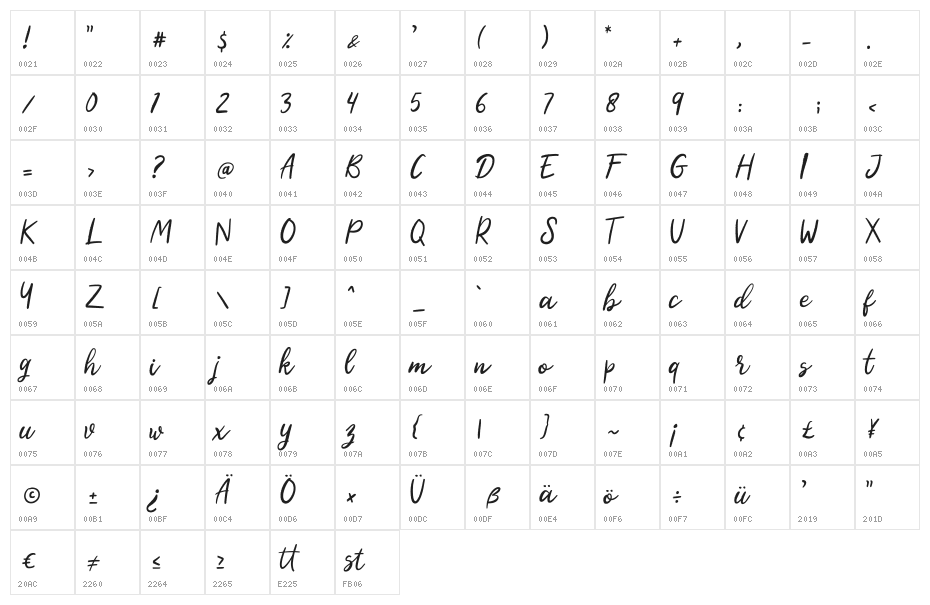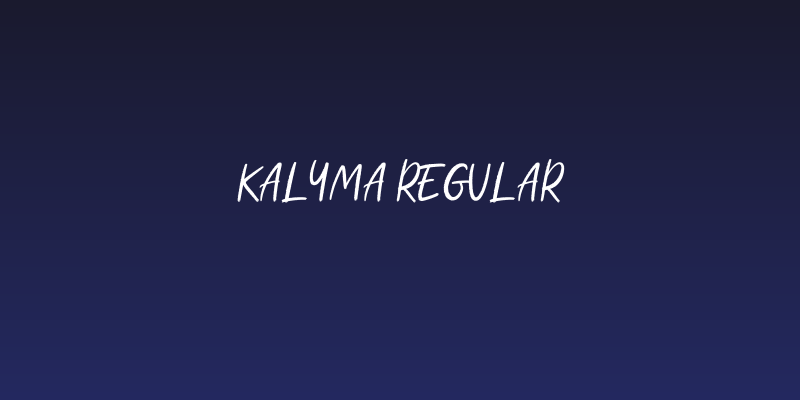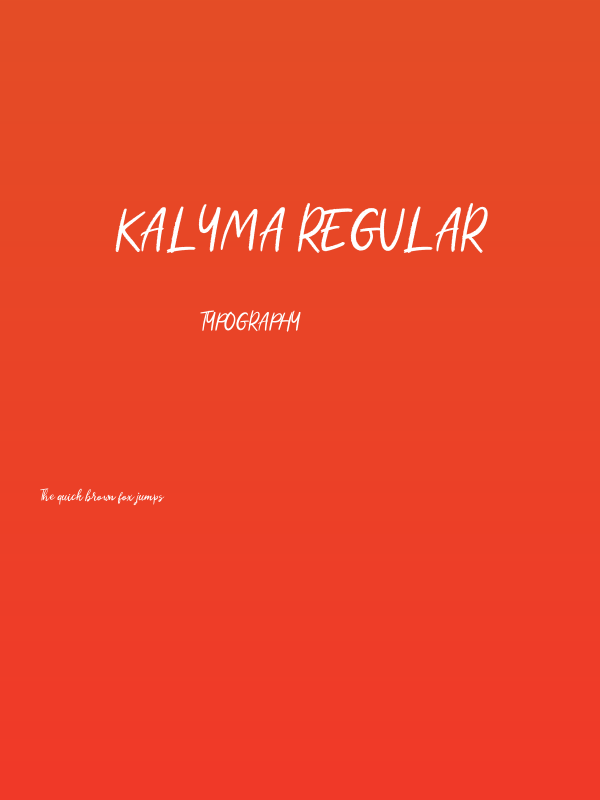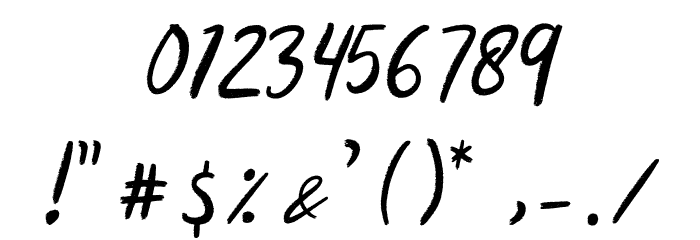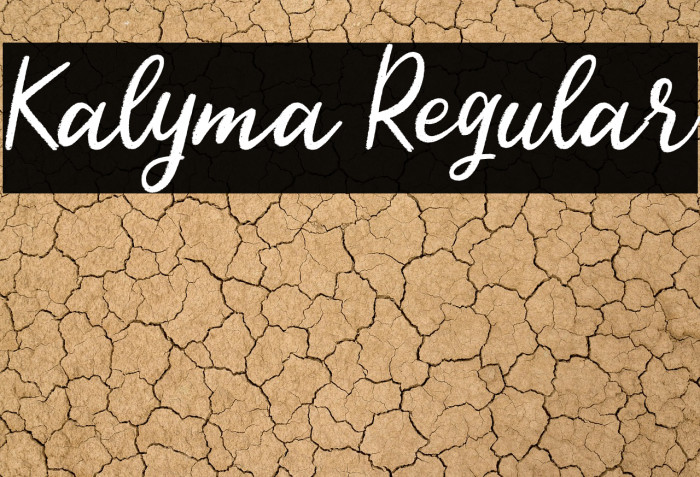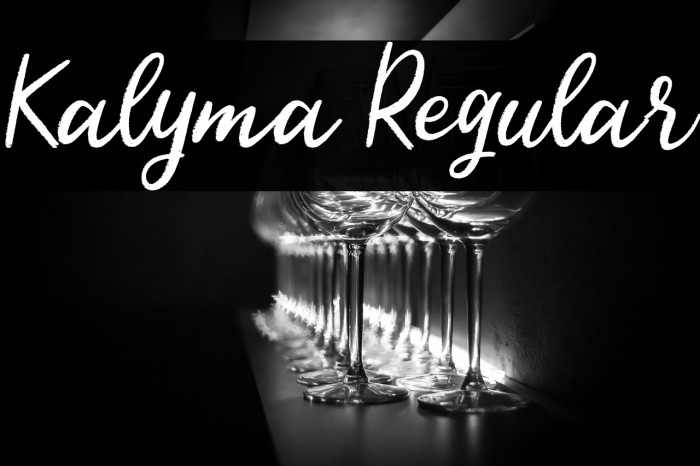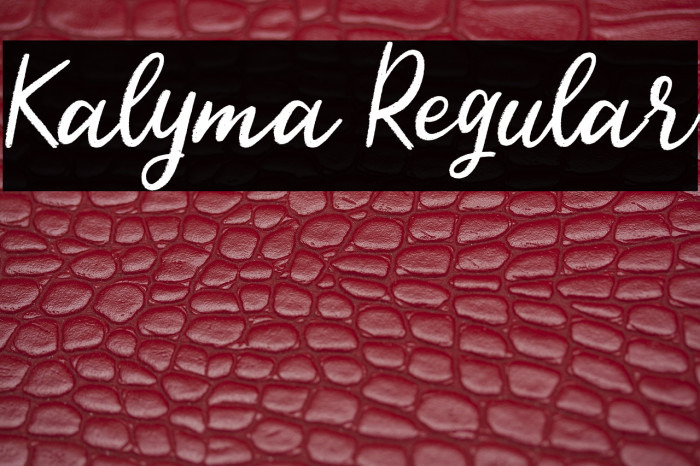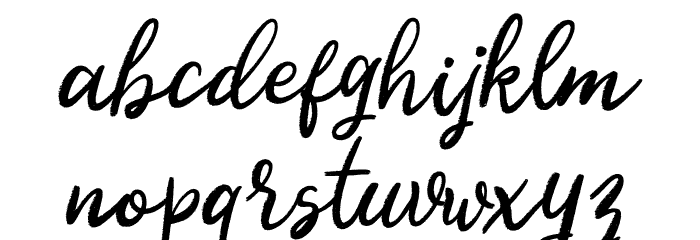
Kalyma Regular Font
Kalyma Regular Description
This font features a dynamic and expressive handwritten style, characterized by its fluid strokes and natural flow. The uppercase letters are bold and slightly slanted, giving a sense of movement and energy. The lowercase letters maintain a consistent rhythm, with some characters extending below the baseline, adding to its casual and approachable feel. The numerals are clear and legible, matching the overall aesthetic of the font. Special characters are well-integrated, maintaining the same lively and informal style.
| Overall Style | Casual, Expressive |
| Proposed Projects | Ideal for projects that require a personal touch, such as greeting cards, invitations, or branding for creative businesses. |